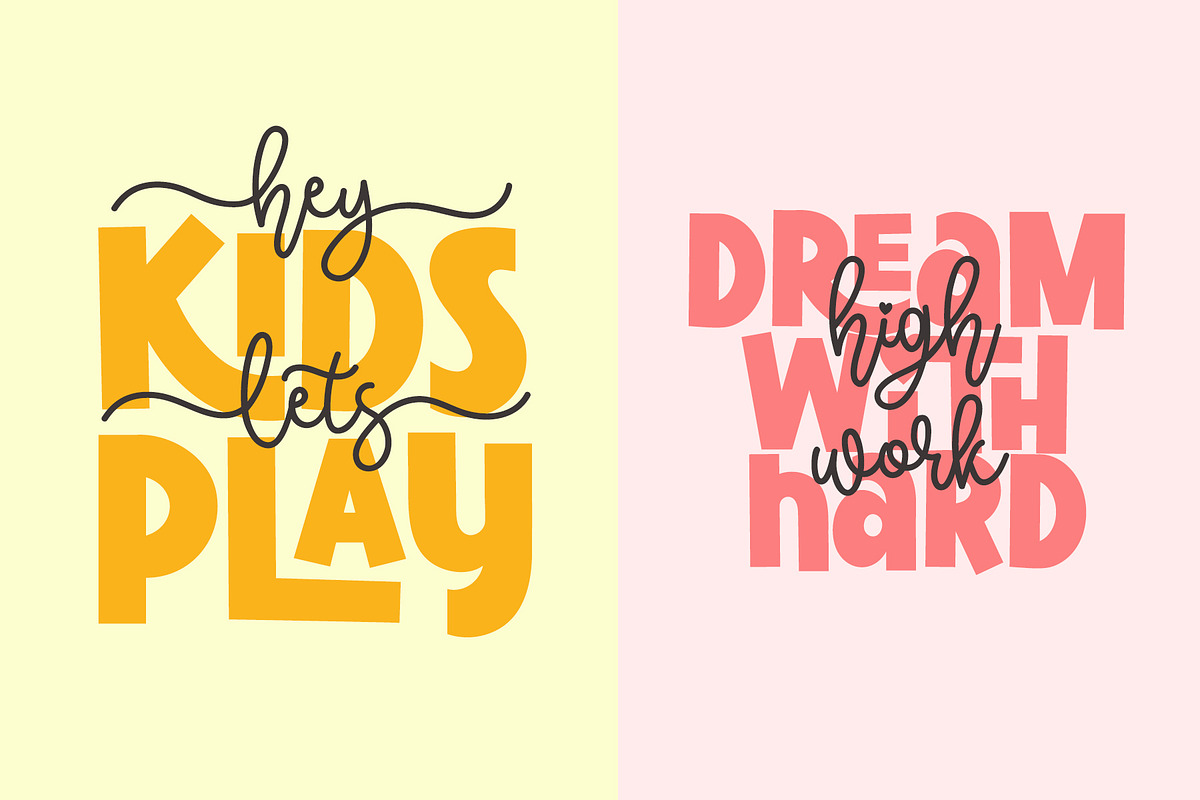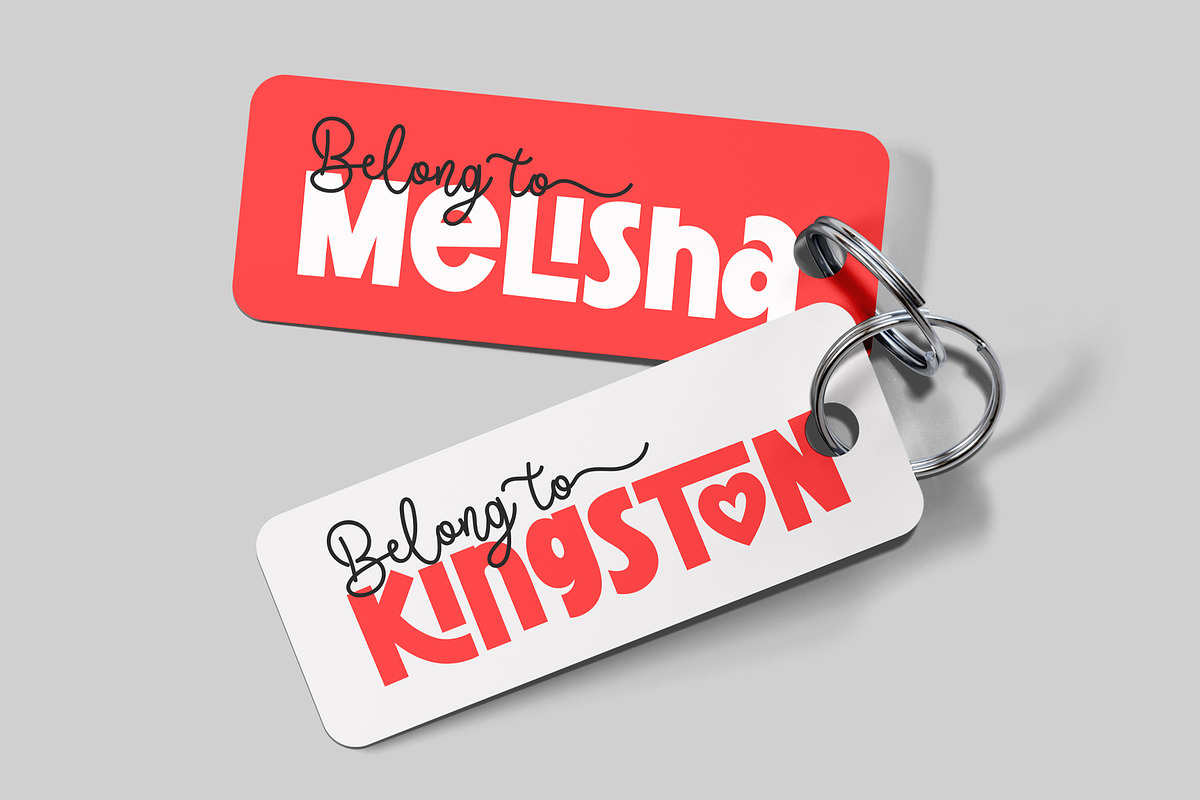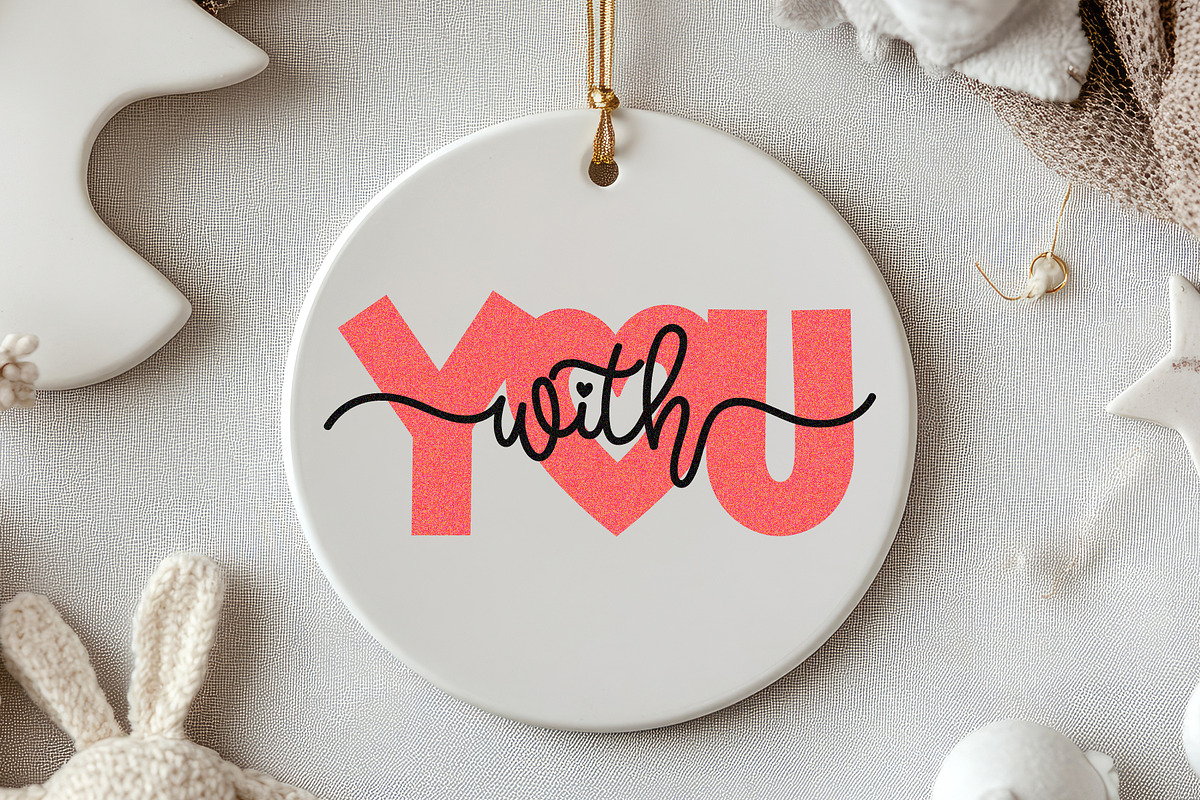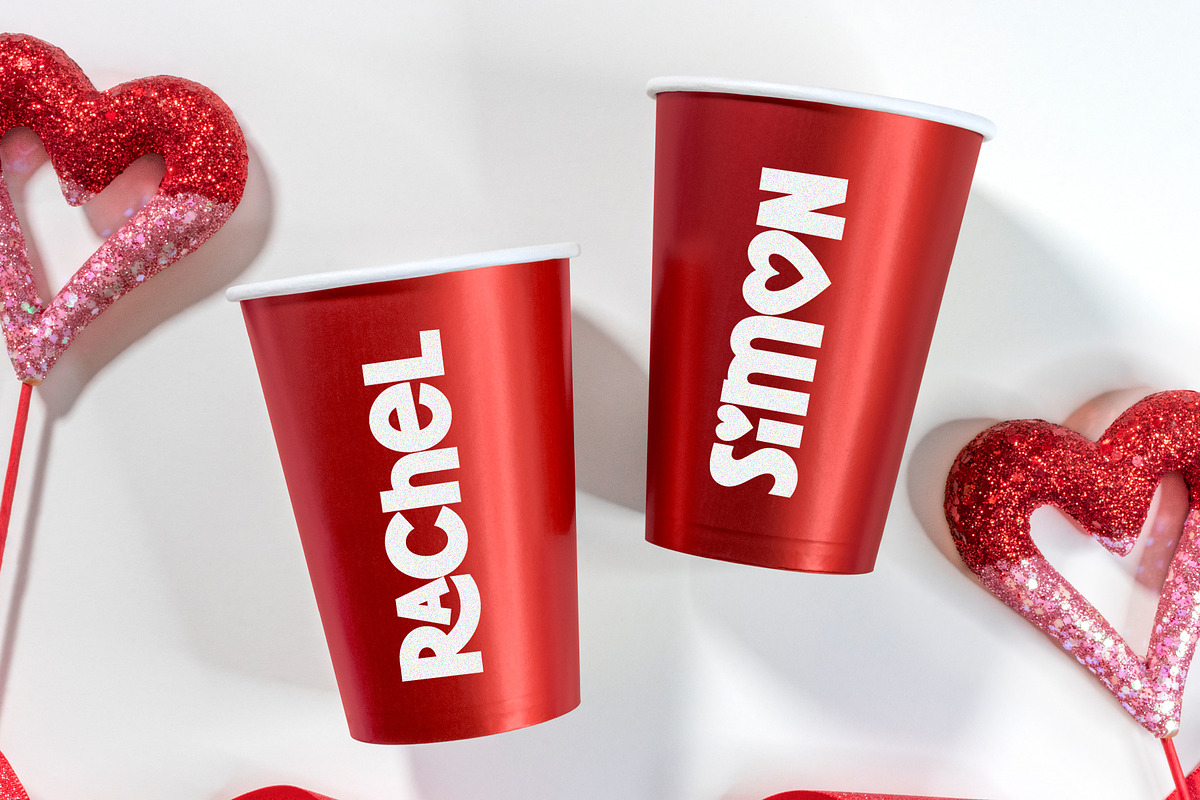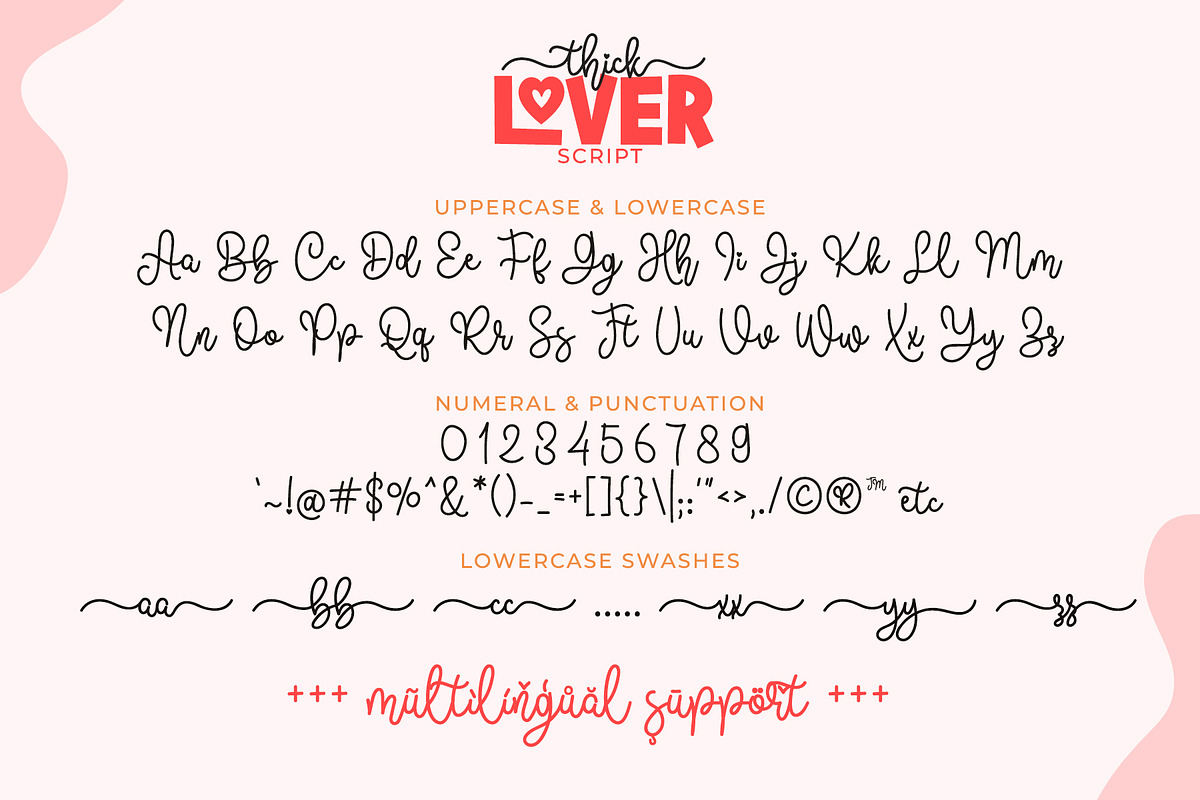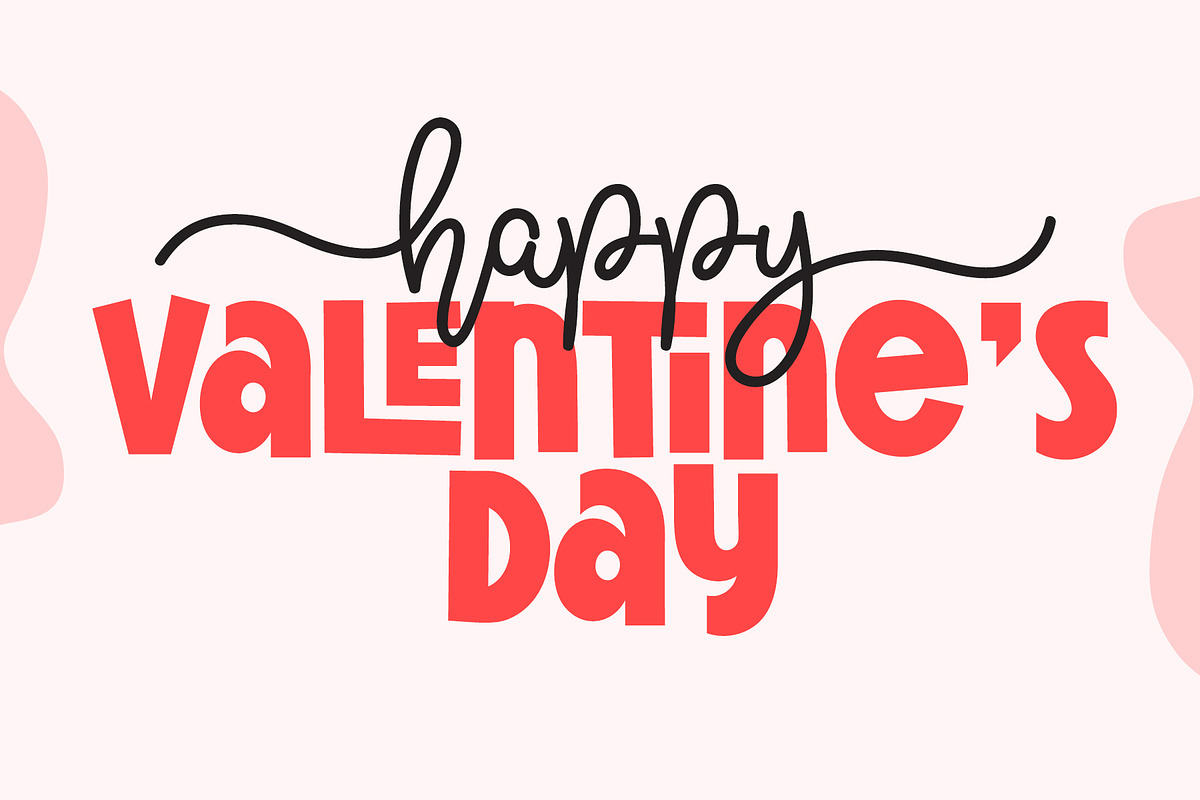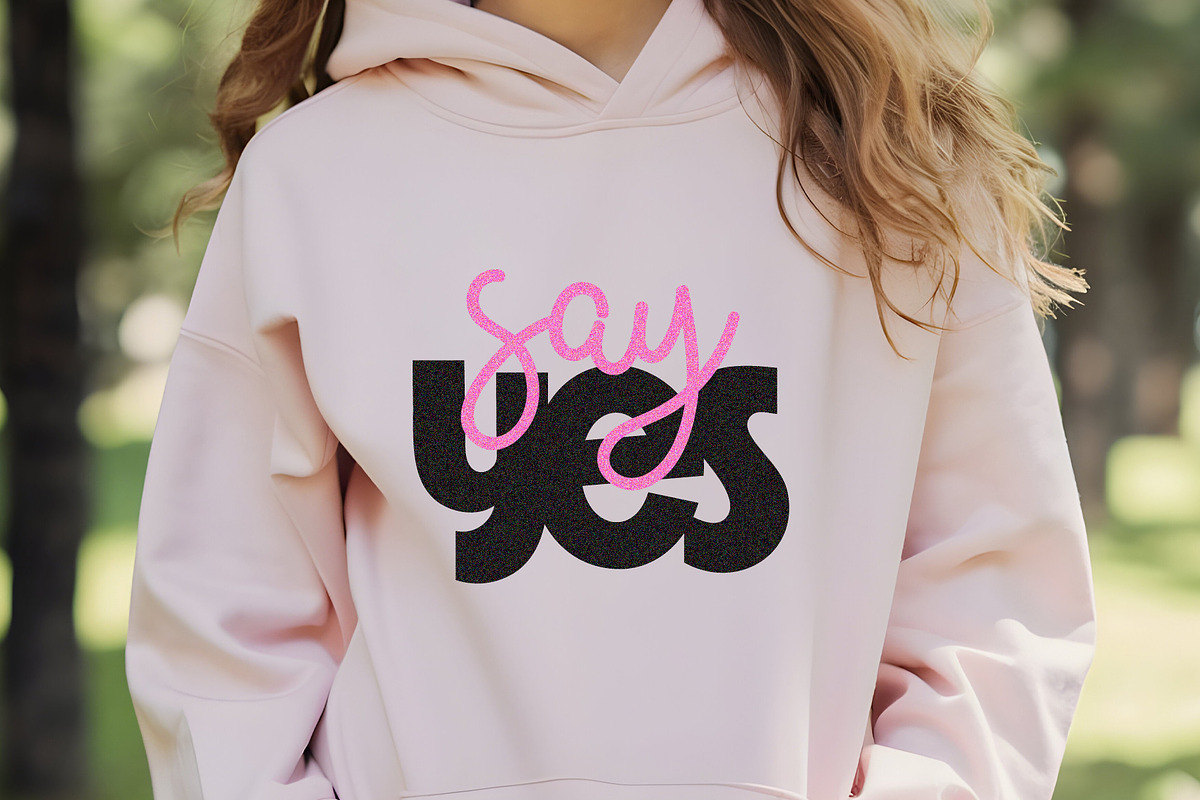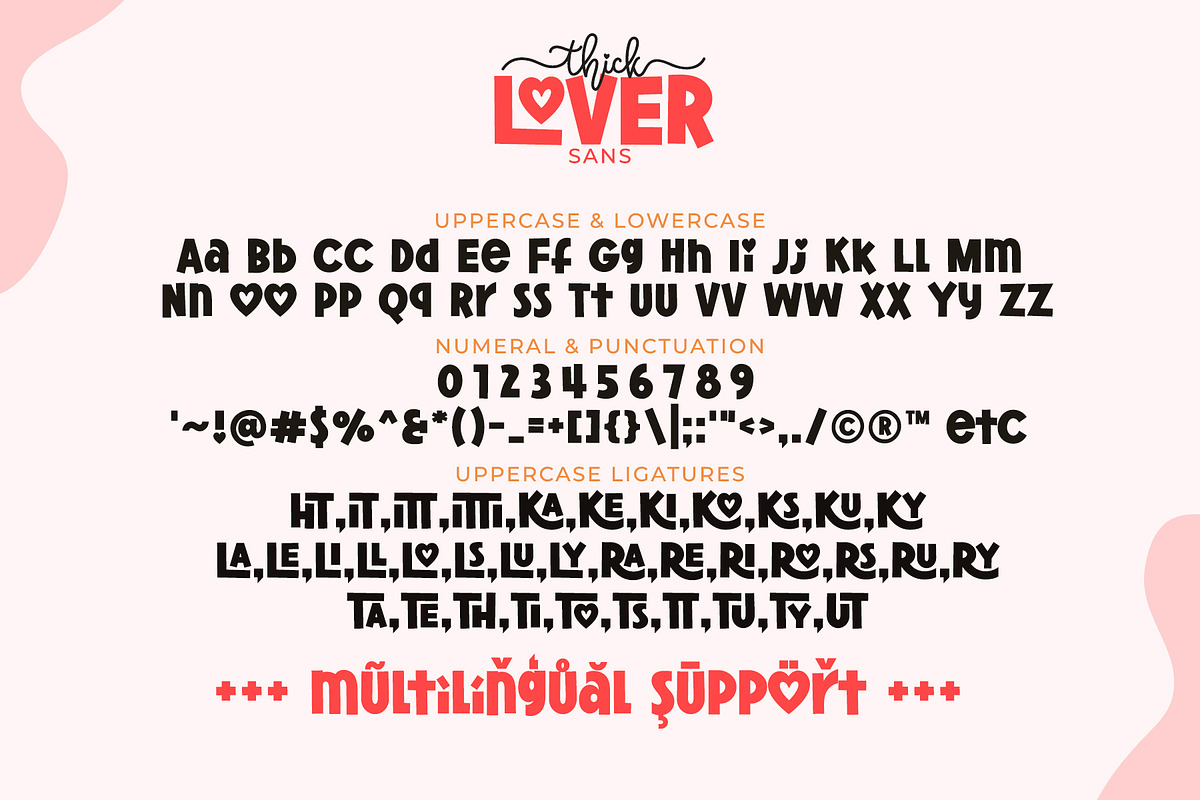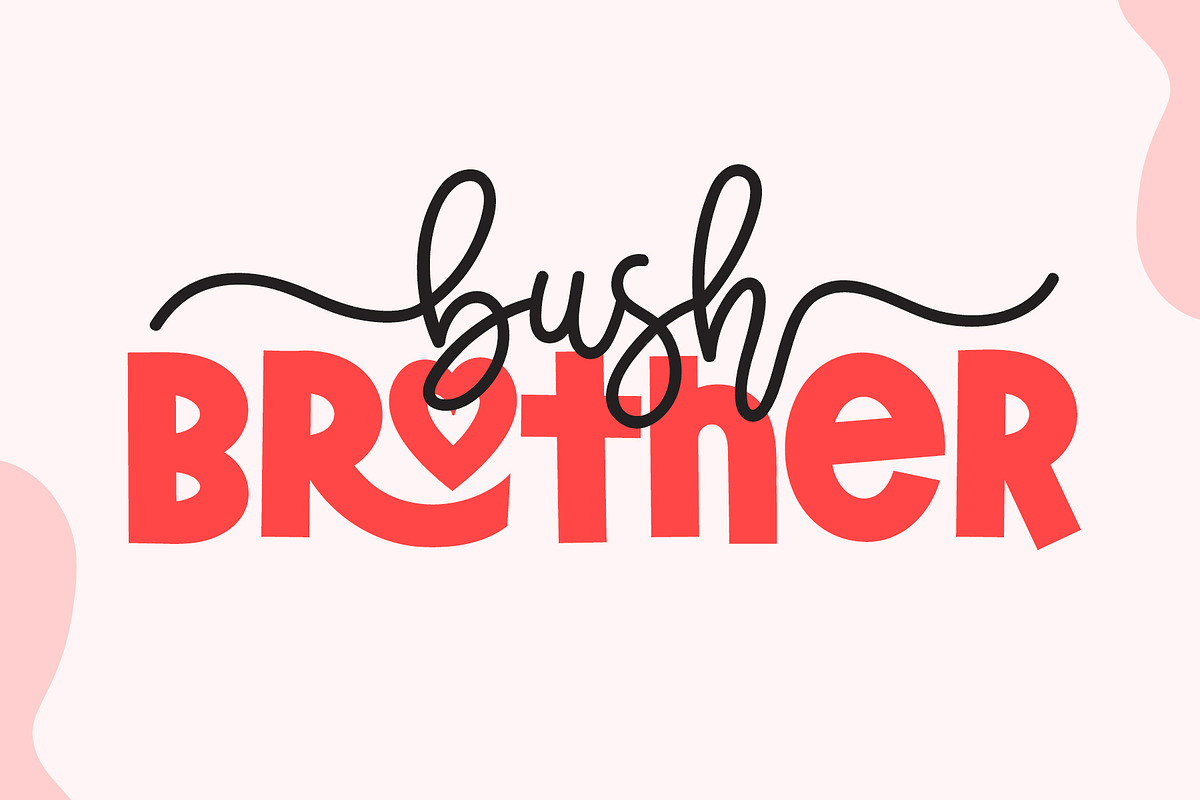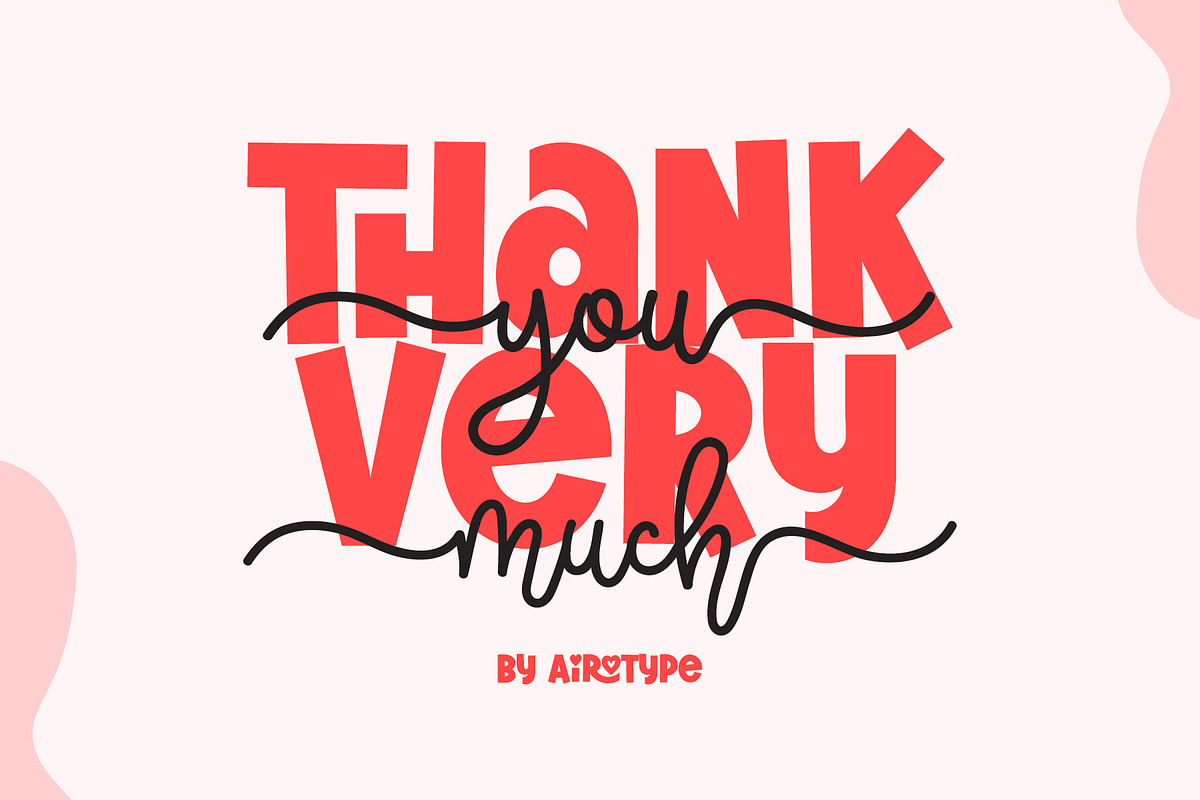
Thick Lover - Cute Font Duo
Thick Lover is font duo that combines bold display font and monoline cursive font. The combination of this duo will enhance the cuteness of the design work.
Thick Lover script font has lowercase swash in its front and back. Thick Lover Sans has few uppercase ligatures.
Thick Lover is pretty cute font for wide ranges of design with cute and lovely theme, such as t-shirt, Valentine's Day, logo, display, crafting, sticker, keychain, tumbler, sublimation, and many more.
- Thick Lover Script (with lowercase swash)
- Thick Lover Sans (with few uppercase ligatures)
- Most Multilingual Accent